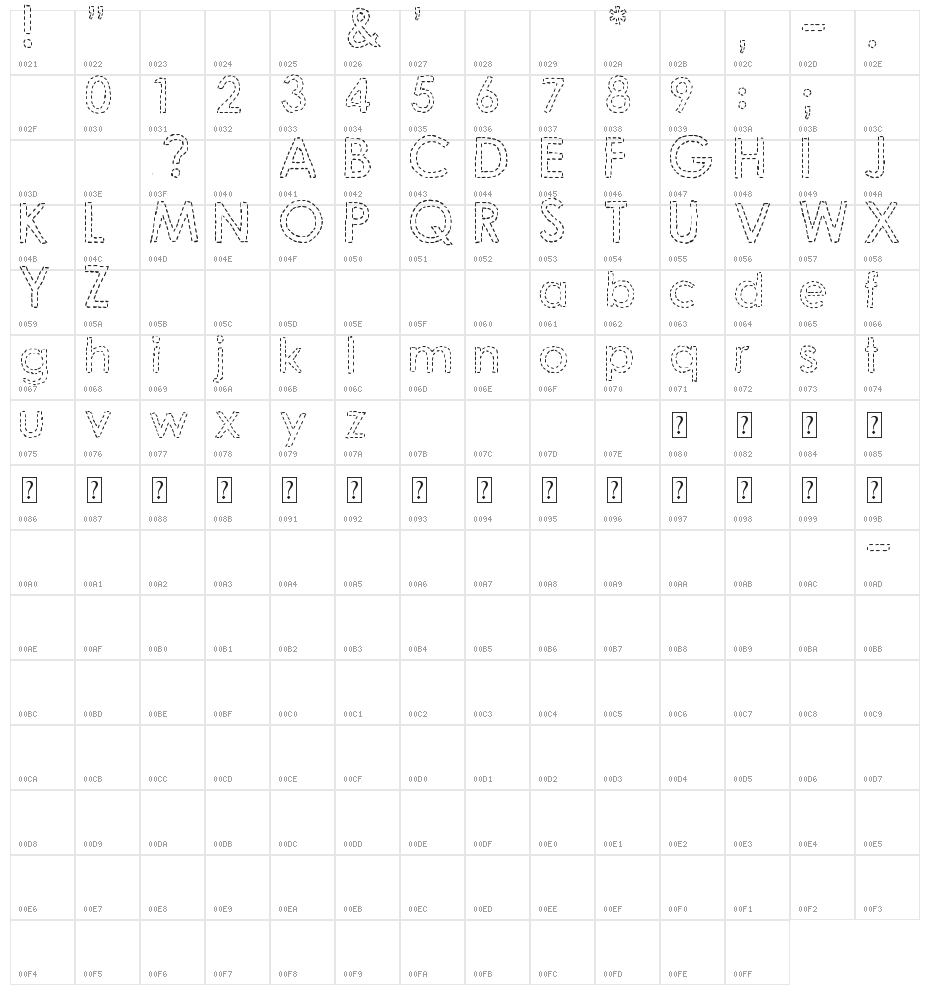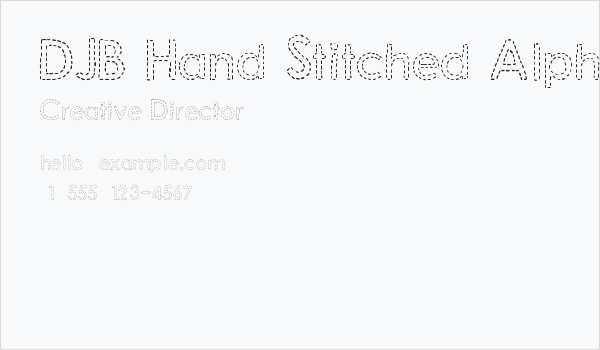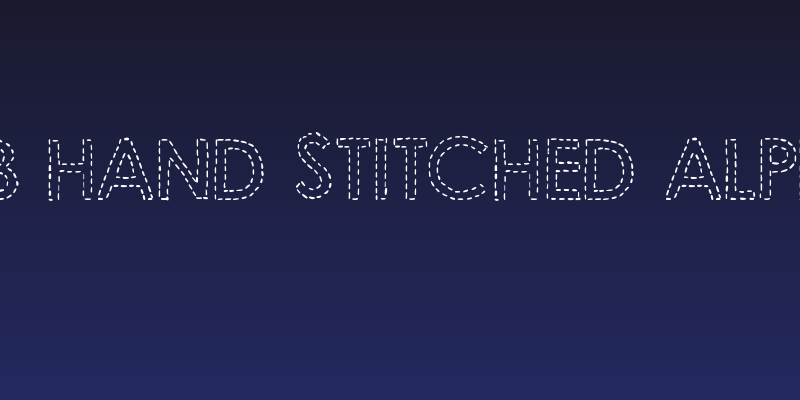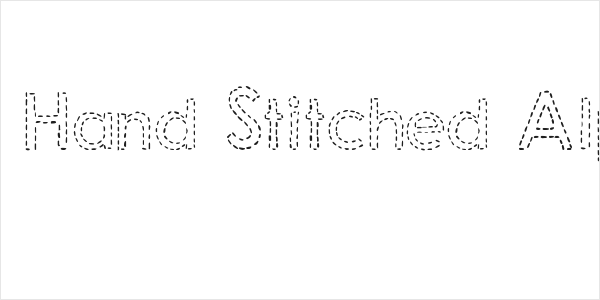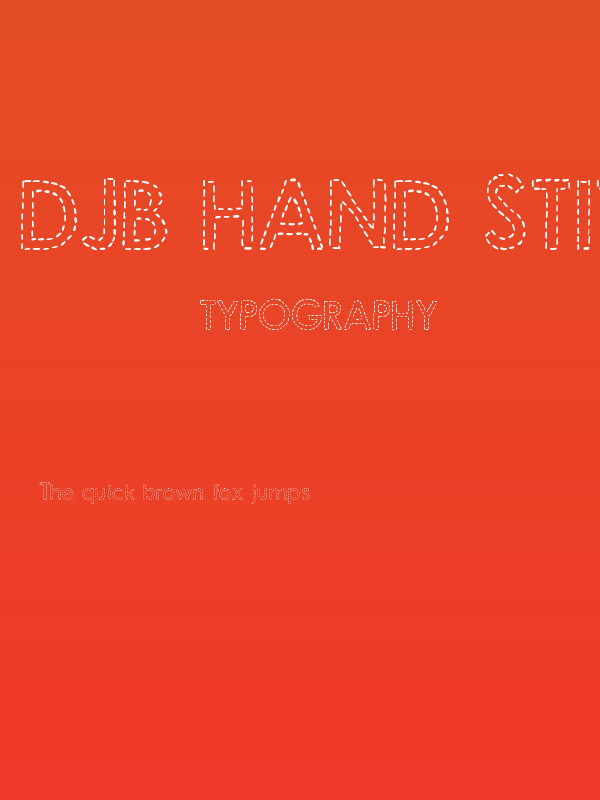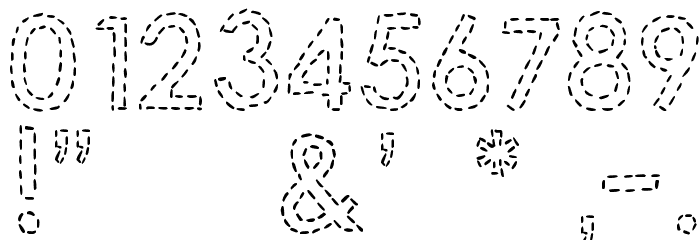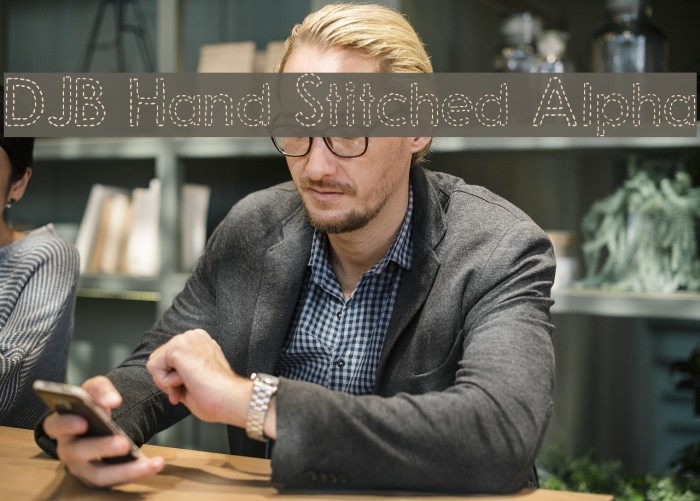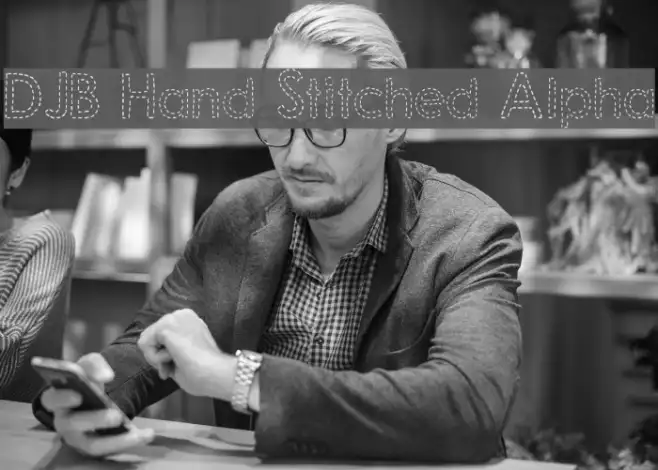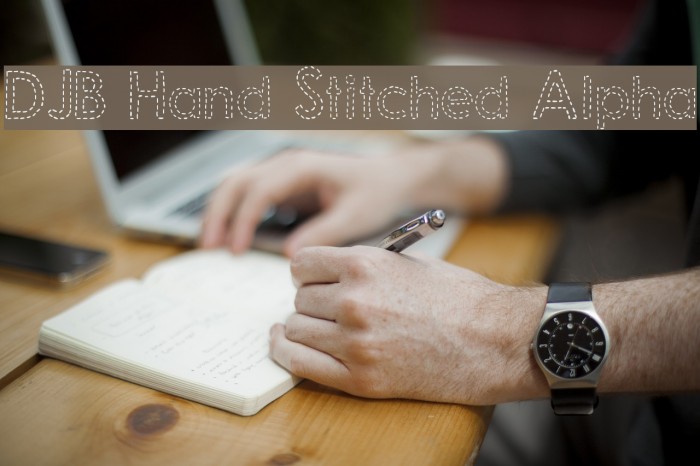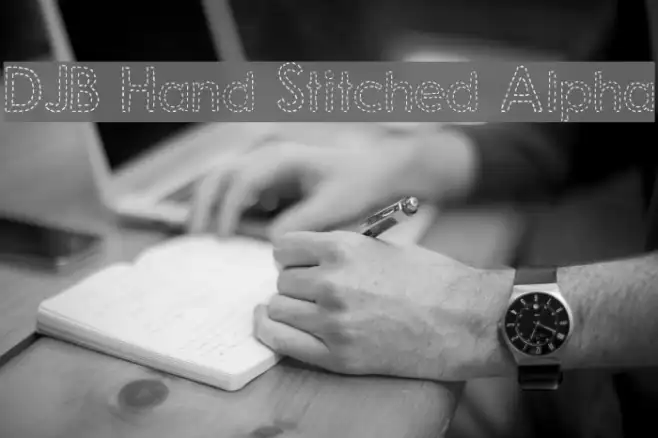
DJB Hand Stitched Alpha Font
| Use Case | Headlines, Logos, Craft projects |
| Proposed Projects | Ideal for DIY projects, craft blogs, children's book covers, greeting cards, and any design that benefits from a handmade aesthetic. |